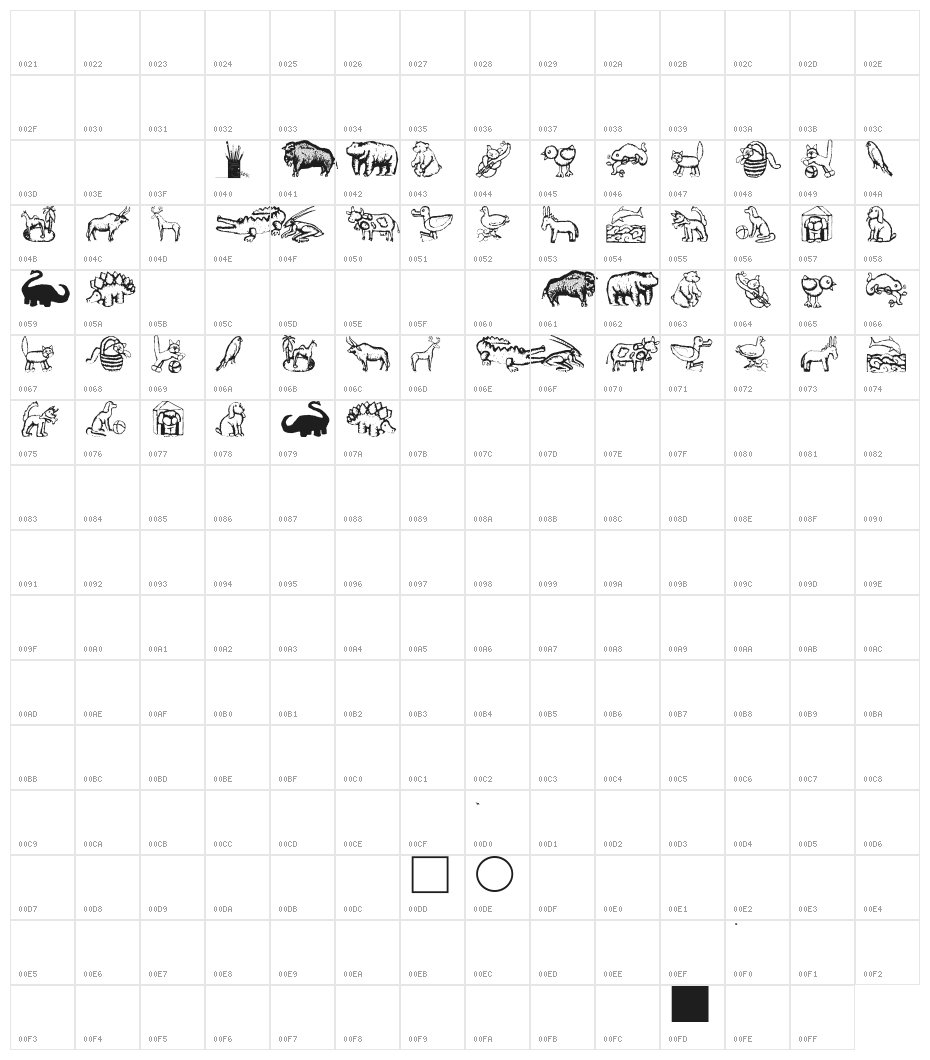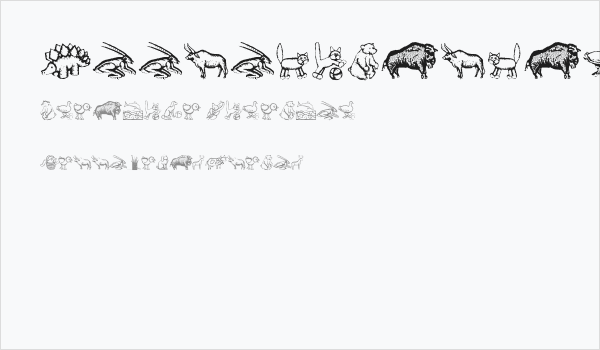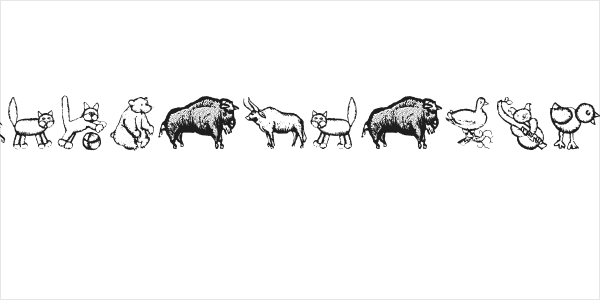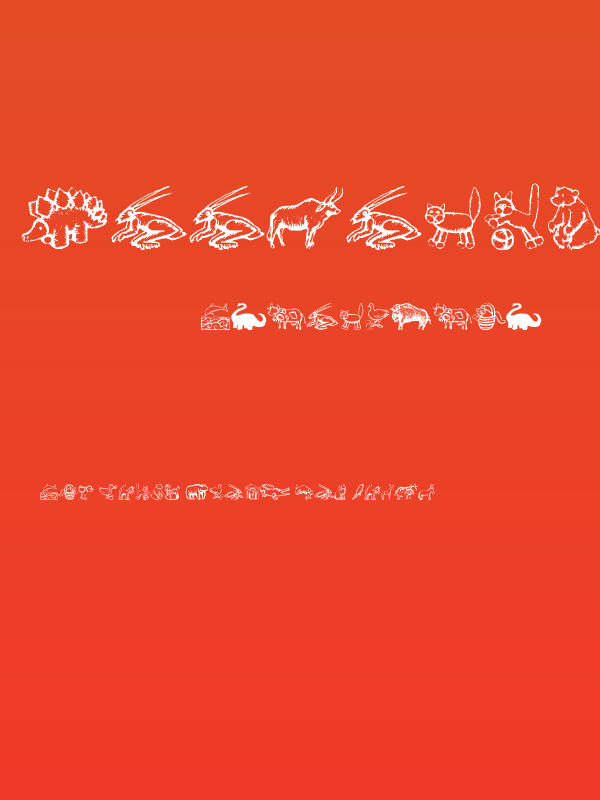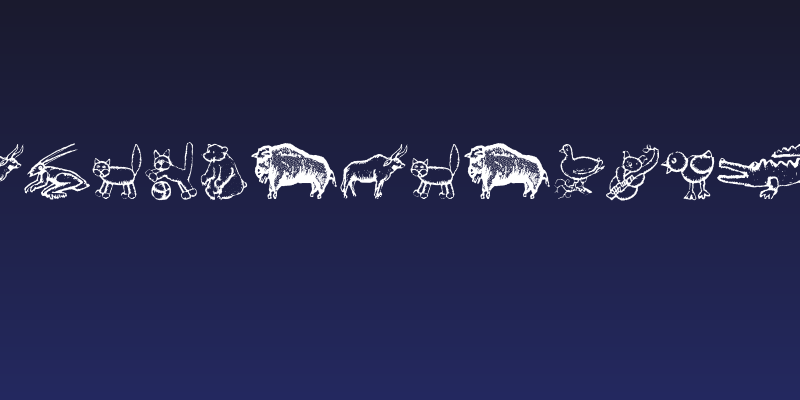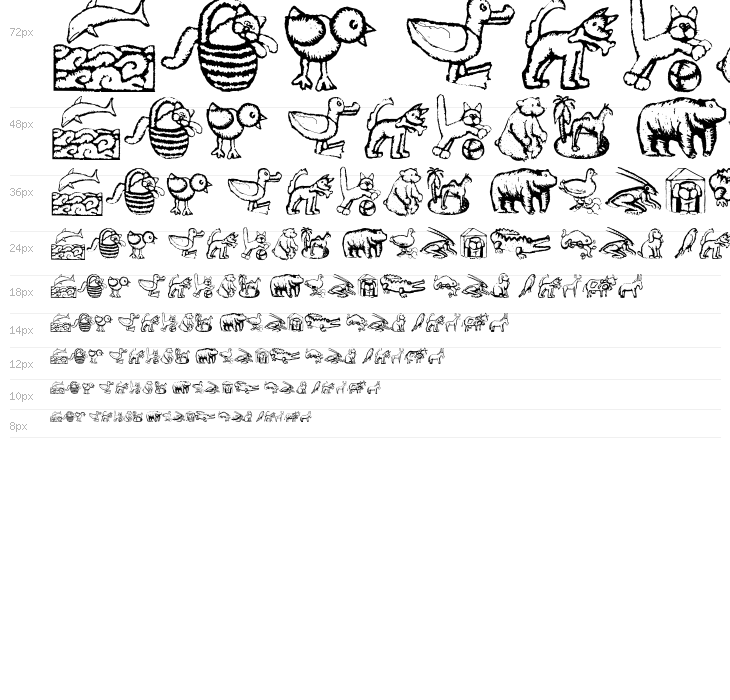
ZoologicalGardenOne Font
A playful, illustrative font composed entirely of hand-drawn animal and zoo-themed doodles, each character represented by a unique animal or related object, with a whimsical and informal style.
Overall StyleDecorative, Whimsical, Playful
Use CaseLogos, Headlines, Posters, ChildrenÒ€ℒs materials
Proposed ProjectsChildrenÒ€ℒs books, educational materials, zoo event posters, party invitations, playful branding.